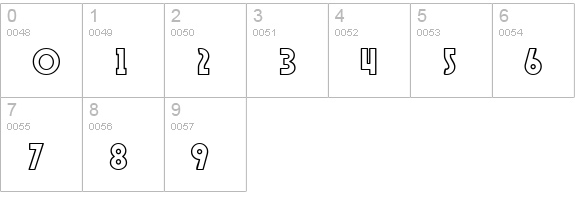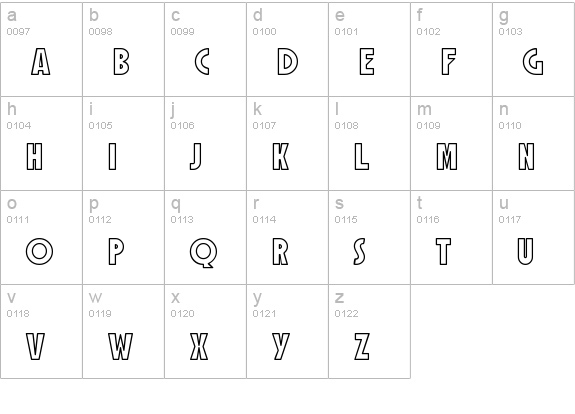
SF Speakeasy Outline Font Details
Introducing SF Speakeasy Outline font, a captivating typeface that effortlessly combines vintage charm with contemporary design elements. This font is perfect for adding a touch of nostalgia and sophistication to any project, be it a logo, packaging, or poster. With its elegant and streamlined outlines, SF Speakeasy Outline font exudes a sense of timeless elegance, reminiscent of the roaring 20s. Its delicate curves and sharp edges create a unique visual appeal, making it a standout choice for both digital and print designs. One of the most remarkable features of SF Speakeasy Outline font is that it is available for free. Yes, that's right - you can download this remarkable font without spending a dime. FontsMarket.com is proud to offer this font as a free download, allowing you to enhance your creative projects without breaking the bank. The versatility of SF Speakeasy Outline font knows no bounds. Its clean lines and legible characters make it suitable for a wide range of applications, from branding and advertising to editorial and web design. Whether you're aiming for a classic, vintage look or a modern, edgy aesthetic, this font has got you covered. With SF Speakeasy Outline font, you can effortlessly transport your audience back in time while still maintaining a contemporary feel. Its timeless appeal and bold presence make it a must-have for designers and creatives looking to make a lasting impression. So why wait? Experience the magic of SF Speakeasy Outline font for yourself. Download it for free at FontsMarket.com and unlock a world of possibilities for your next design project.